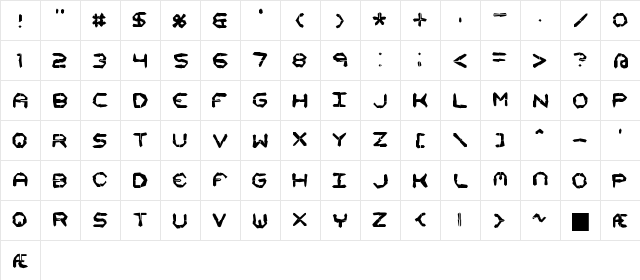
Mishmash 4x4i BRK Regular
| Foundry | ƎIGMA FONTS |
| Designer | ƎIGMA FONTS - Brian Kent |
Design Context for Mishmash 4x4i BRK Typeface
Mishmash 4x4i BRK takes a measured approach to typography — its balanced proportions and neutral character make it a reliable workhorse for both digital and print work.